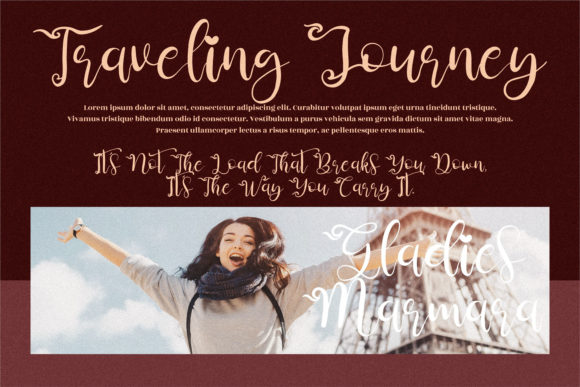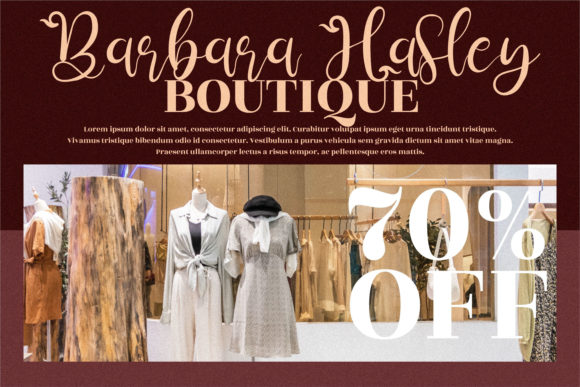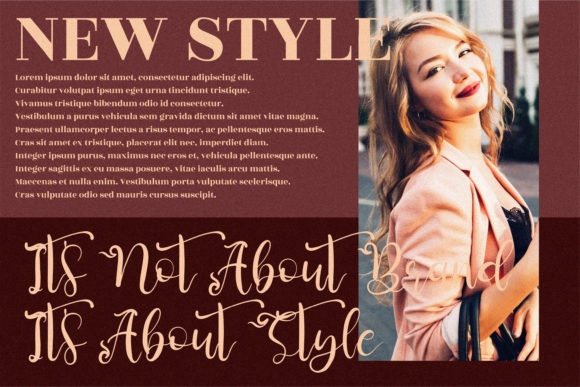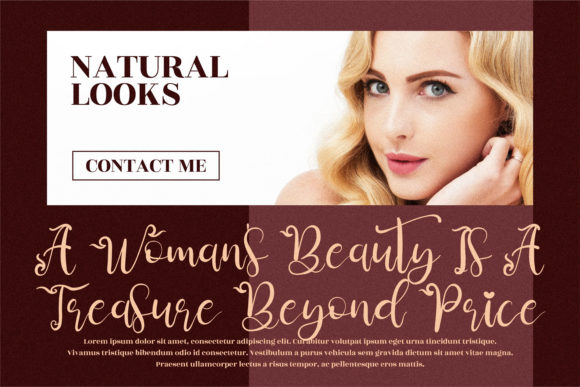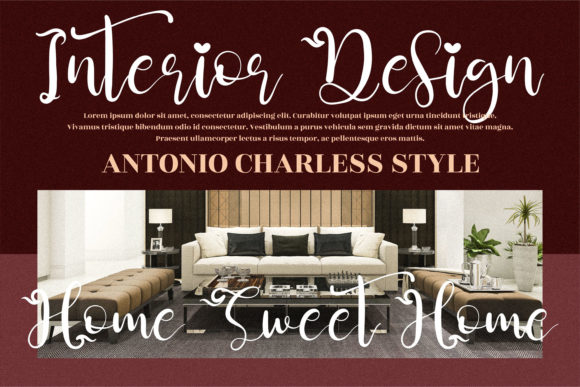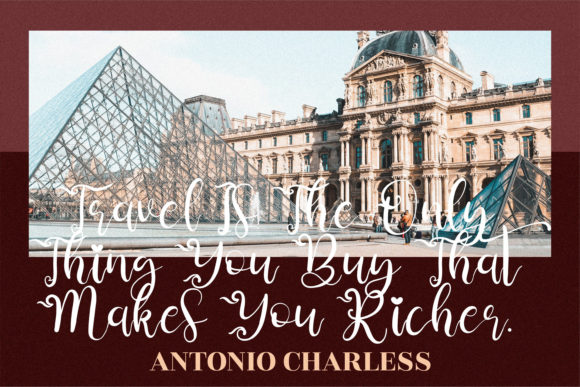
Aullia Beauty Font: Elevate Your Designs with Elegance and Sophistication
In the world of typography, a beautiful font can make all the difference in creating stunning designs that capture the essence of a brand or message. Aullia Beauty Font is a gorgeous script font that embodies class, elegance, and modernity, making it an ideal choice for designers and crafters looking to elevate their work. In this article, we’ll dive into the features and benefits of Aullia Beauty Font, and explore how it can be used to create breathtaking designs for various applications.
A Classy and Elegant Script Font
Aullia Beauty Font boasts a refined script style that exudes sophistication and luxury. Its elegant and modern look makes it perfect for designs that require a touch of glamour and poise. Whether you’re creating logos, branding materials, invitations, stationery, wedding designs, or social media posts, Aullia Beauty Font is sure to impress. The font’s beautiful and flowing lines will add a level of refinement to your designs, setting them apart from the rest.
One of the standout features of Aullia Beauty Font is its PUA (Private Use Area) encoding. This means that you can easily access all the glyphs and swashes, allowing you to experiment with different combinations and create unique designs. The PUA encoding ensures that you have complete control over the font, making it easy to customize and adapt to your specific needs.
Versatile and Adaptable
Aullia Beauty Font is an incredibly versatile font that can be used for a wide range of applications. Here are some ideas to get you started:
- Invitations and Stationery: Add a touch of elegance to your invitations, greeting cards, and stationery with Aullia Beauty Font.
- Wedding Designs: Make your wedding designs truly unforgettable with the font’s beautiful and romantic script style.
- Social Media Posts: Elevate your social media presence with stunning graphics and posts that feature Aullia Beauty Font.
Why Choose Aullia Beauty Font?
With so many fonts available, why choose Aullia Beauty Font? Here are just a few reasons why designers and crafters love this font:
- Unique and Eye-Catching: Aullia Beauty Font is a standout font that will set your designs apart from the rest.
- Elegant and Sophisticated: The font’s refined script style exudes luxury and sophistication, making it perfect for high-end designs.
- Easy to Use: With PUA encoding, you can easily access all the glyphs and swashes, making it simple to customize and adapt the font to your needs.
Tips and Tricks for Using Aullia Beauty Font
To get the most out of Aullia Beauty Font, here are some tips and tricks to keep in mind:
- Experiment with Different Sizes: Play around with different font sizes to create visual interest and hierarchy in your designs.
- Pair with Other Fonts: Combine Aullia Beauty Font with other fonts to create a unique and harmonious typography scheme.
- Use Swashes and Glyphs: Take advantage of the font’s PUA encoding to access a wide range of swashes and glyphs, adding an extra layer of creativity to your designs.
Aullia Beauty Font is a stunning script font that offers a world of creative possibilities for designers and crafters. With its elegant and modern look, PUA encoding, and versatility, this font is sure to become a favorite in your design arsenal. Whether you’re creating logos, branding materials, invitations, or social media posts, Aullia Beauty Font is the perfect choice for adding a touch of sophistication and glamour to your work.